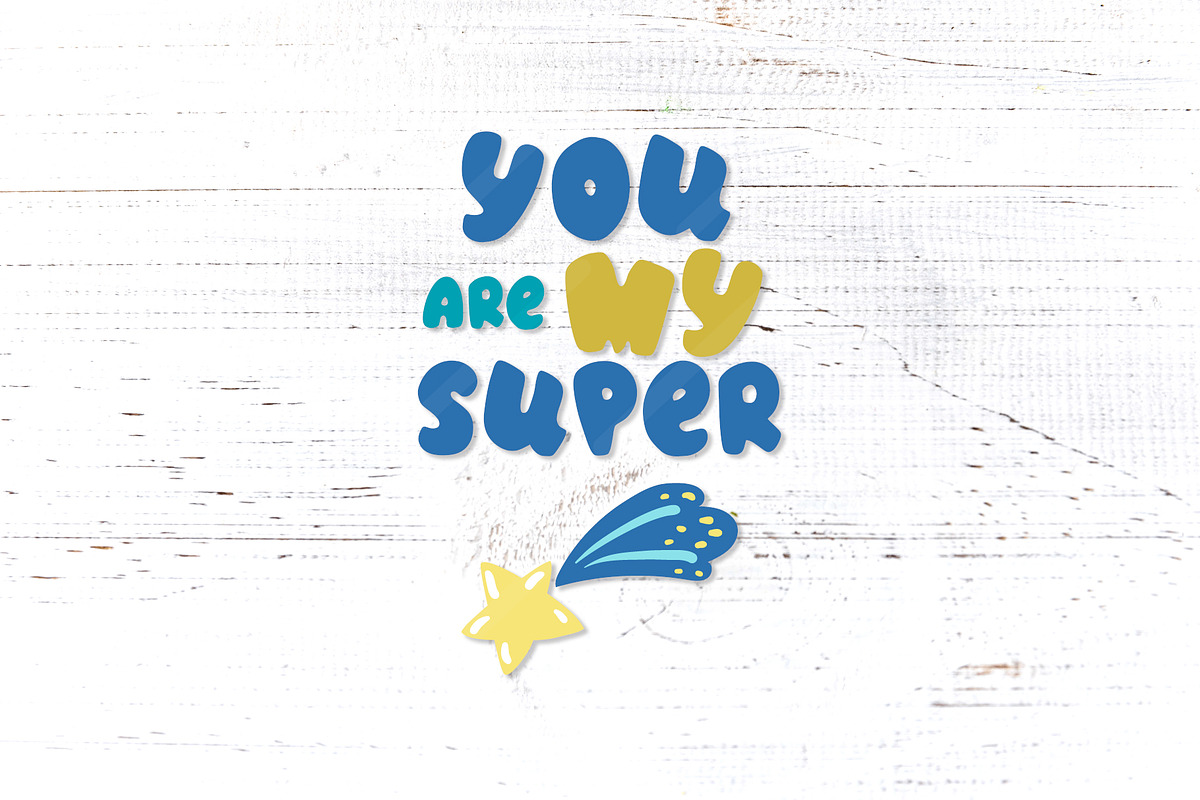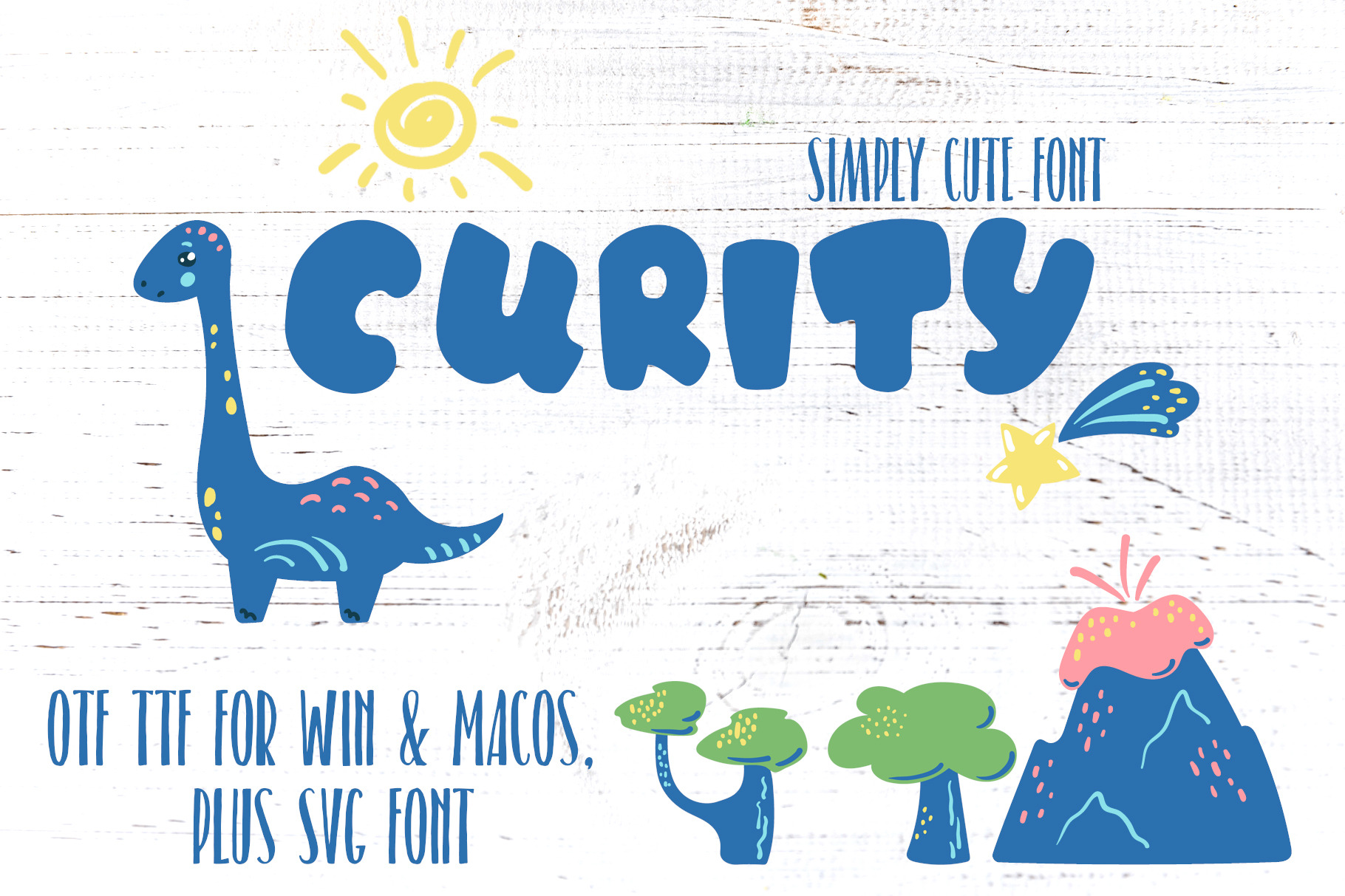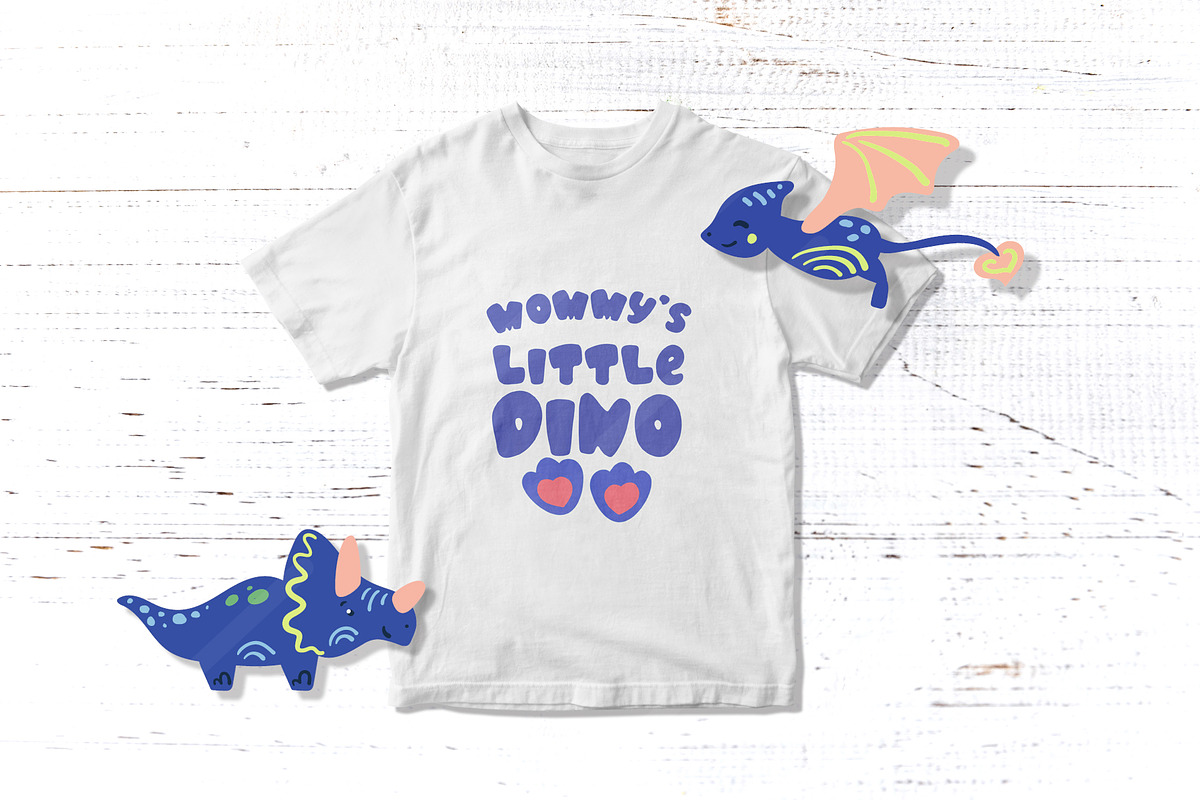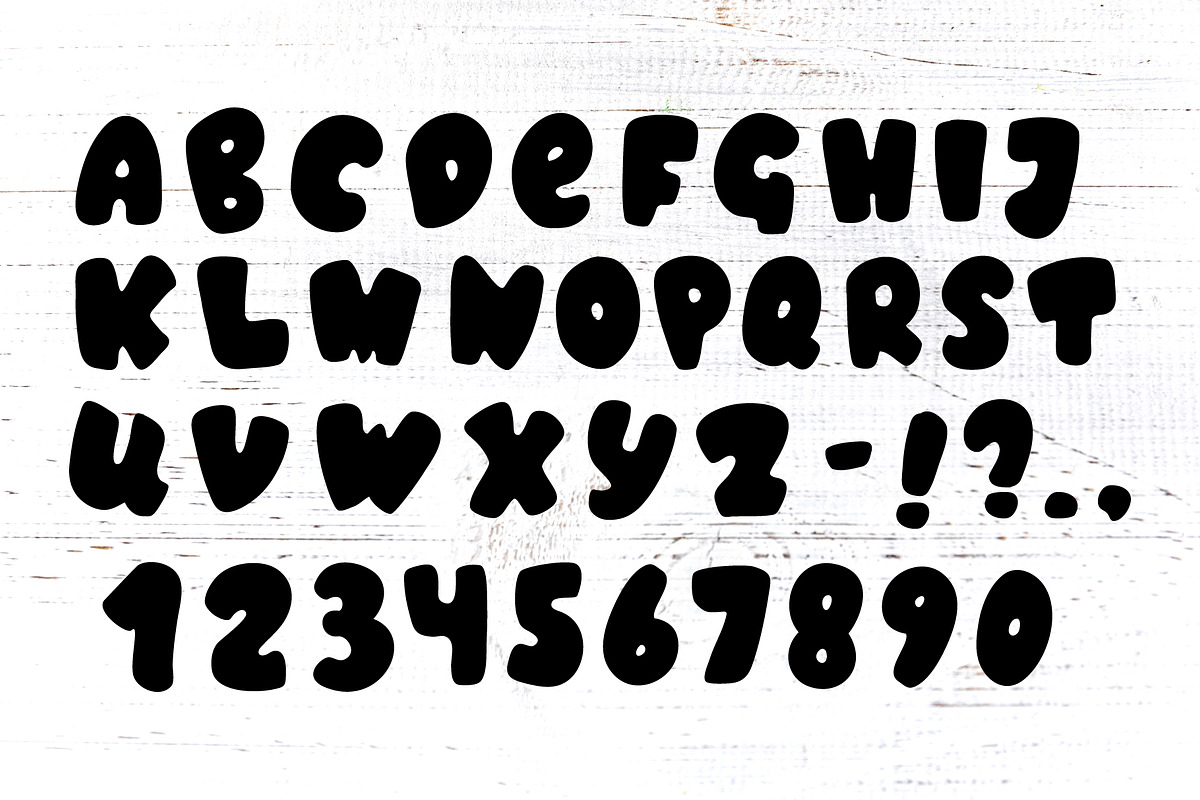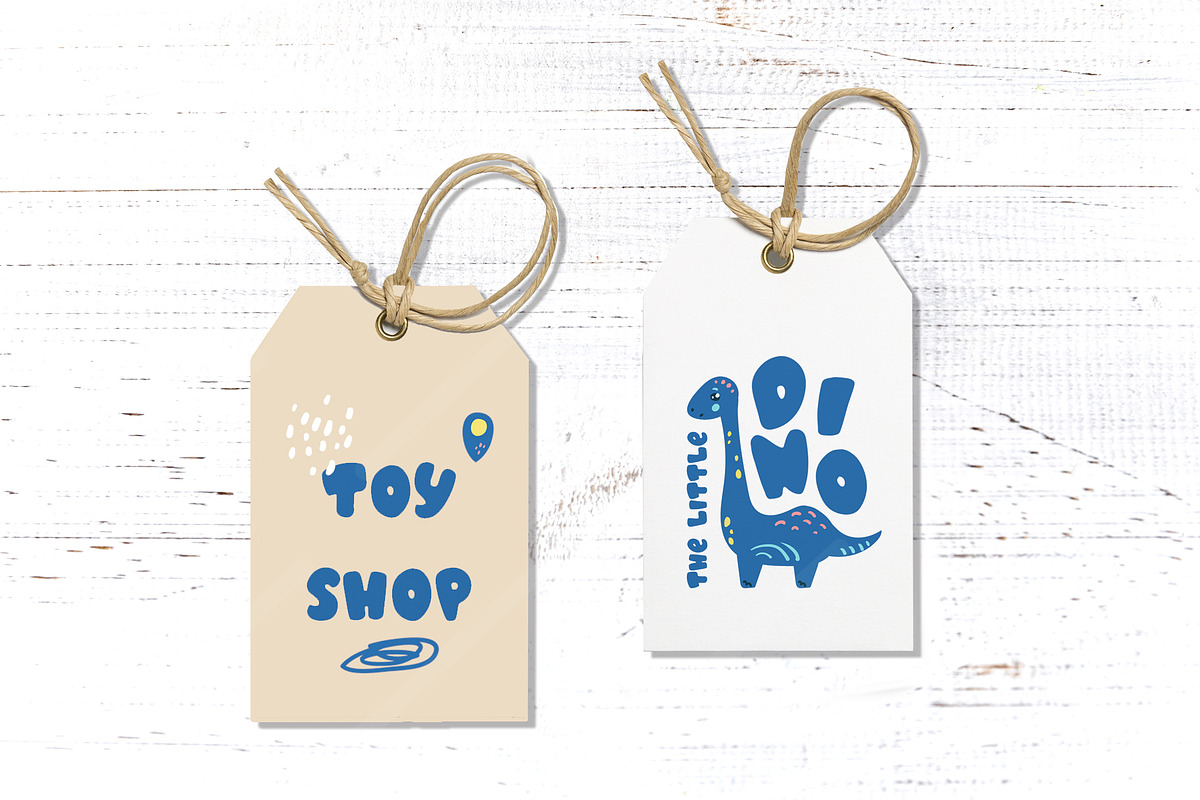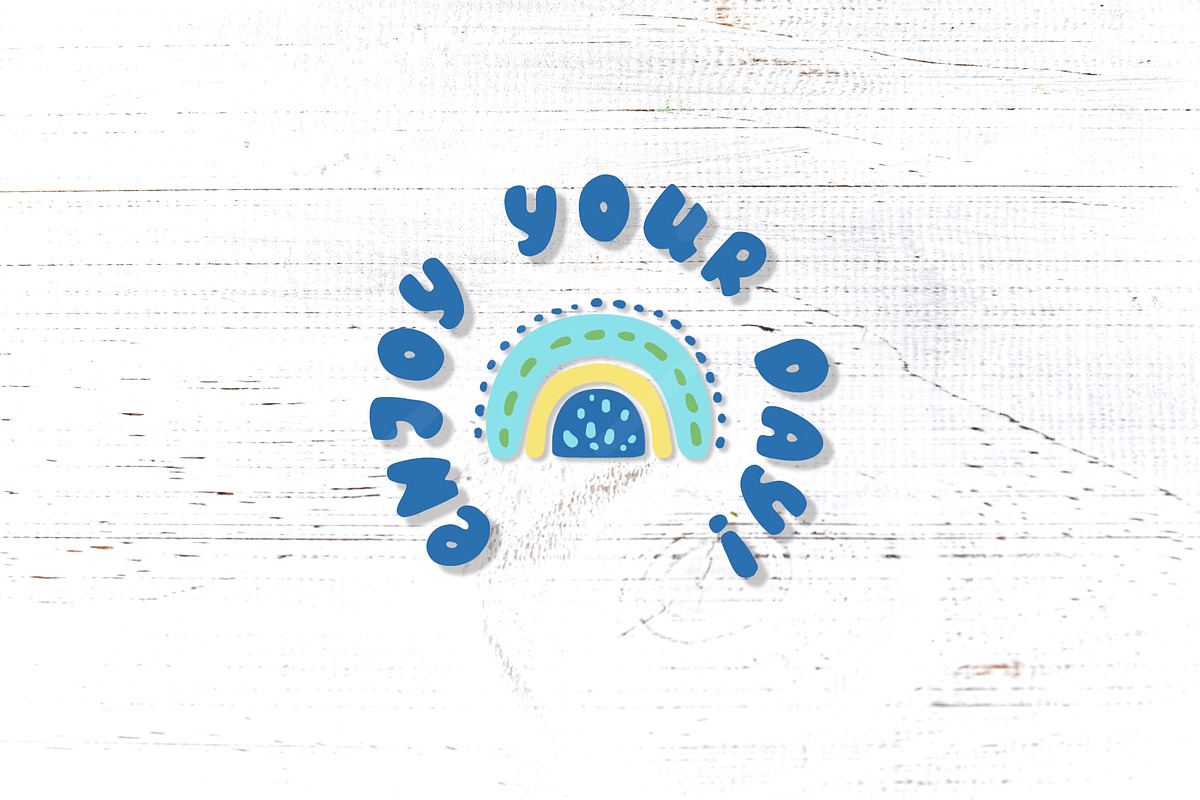
Cute Kids Bold Font, Win Mac SVG
Curity is a simply cute font! It is informal, fun, bold and playful! Use it for kids product design, greeting cards and messages, playful t-shirt prints and posters! This children's font is also ideal for silhouette and cutting machines, as it is round and bold!